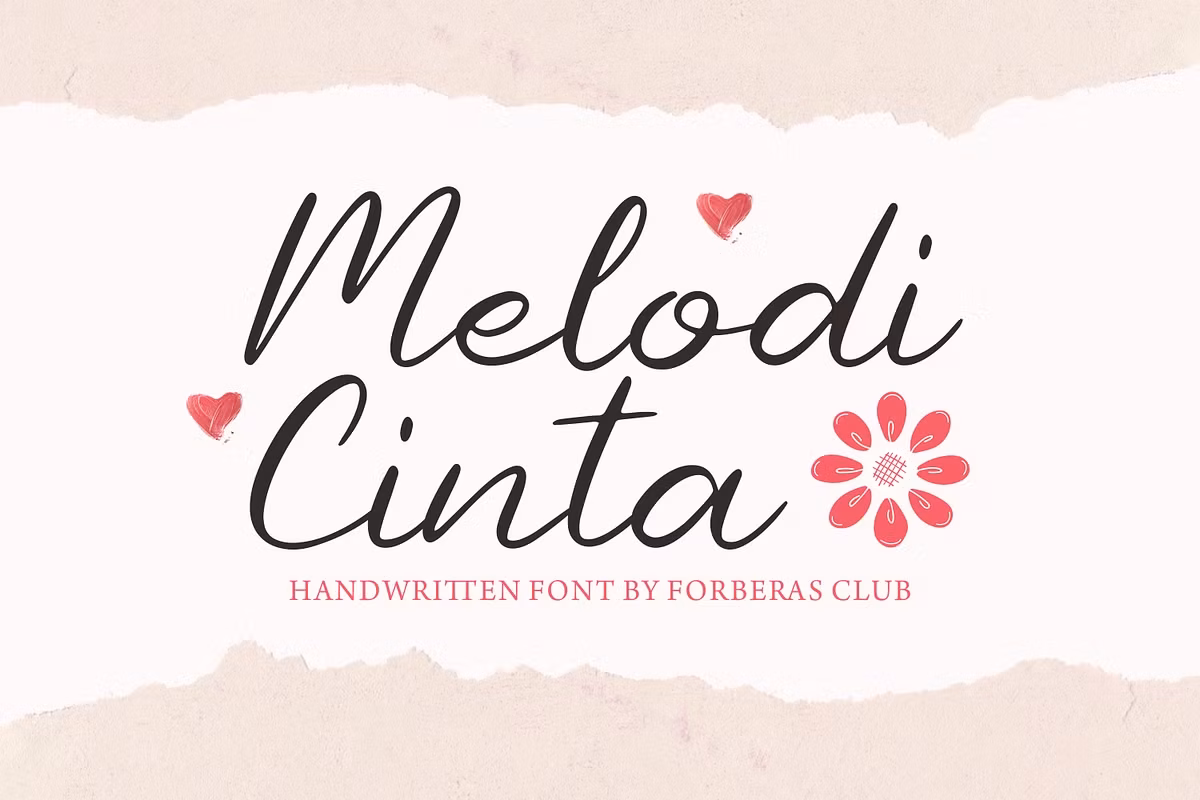
Melodi Cinta | Love Call Lettering Font Free Download is a romantic and expressive script font designed to capture the essence of love and emotion in every stroke. Please note: you must purchase this font for commercial use, but you can test it through a free download. With its flowing, hand-lettered style and elegant curves, Melodi Cinta is perfect for wedding invitations, Valentine’s Day cards, love quotes, branding, and social media designs that need a heartfelt touch.
This font radiates warmth and sincerity, making your message feel intimate and beautifully crafted. Whether you're designing a romantic greeting or building a stylish brand, Melodi Cinta | Love Call Lettering Font Free Download brings grace and charm to your typography. Fully compatible with Adobe Illustrator, Photoshop, and Canva, it's easy to use and perfect for personal projects. Download now and let your words dance with love and style.